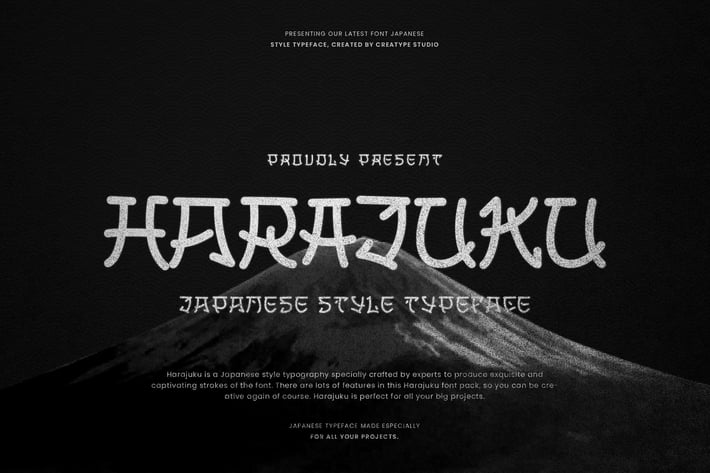
Harajuku Japanese Business Font
Harajuku is a Japanese style typography specially crafted by experts to produce exquisite and captivating strokes of the font. There are lots of features in this Harajuku font pack, so you can be creative again of course. Harajuku is perfect for all your big projects.
Harajuku is perfect for branding projects, logo, wedding designs, social media posts, advertisements, product packaging, product designs, label, photography, watermark, invitation, stationery and any projects that need handwriting taste.
Ton of glyphs
Ligature & Alternate